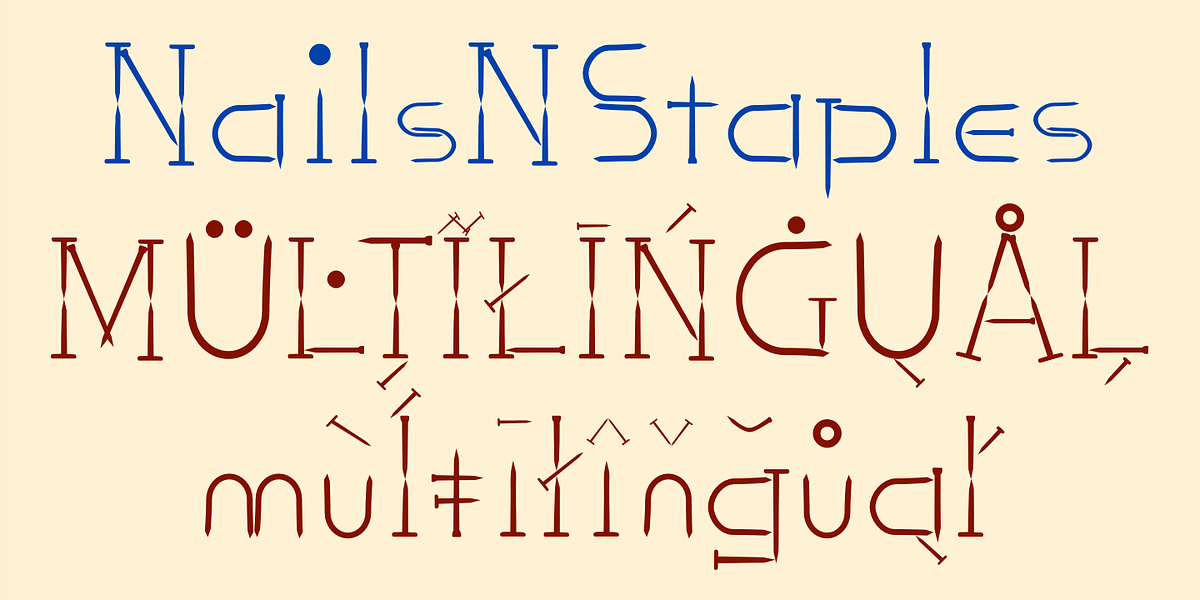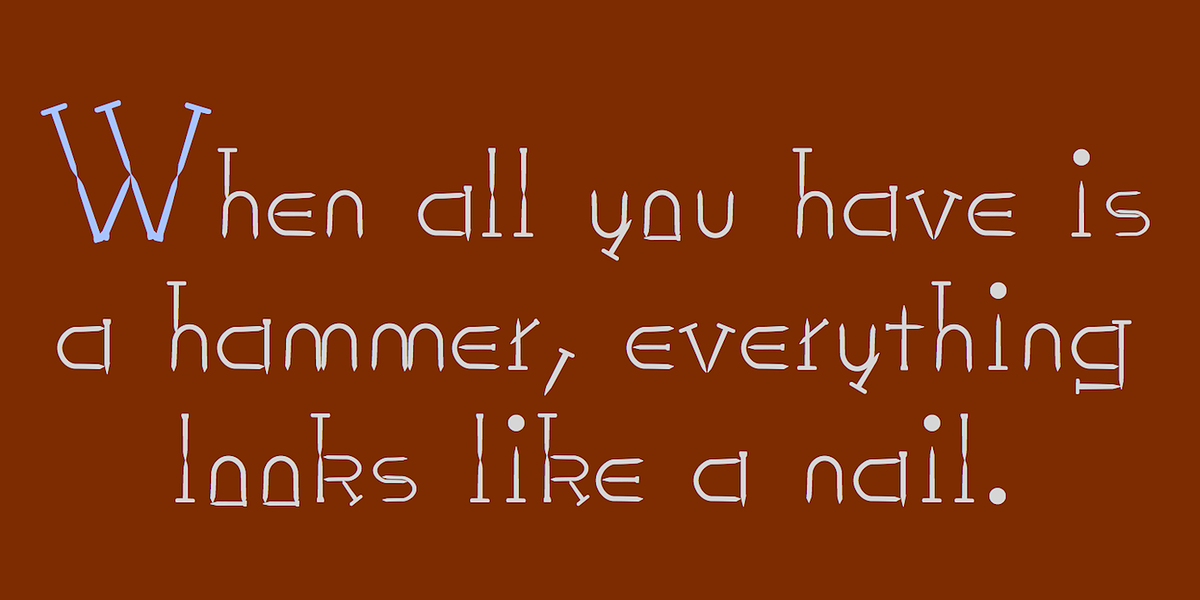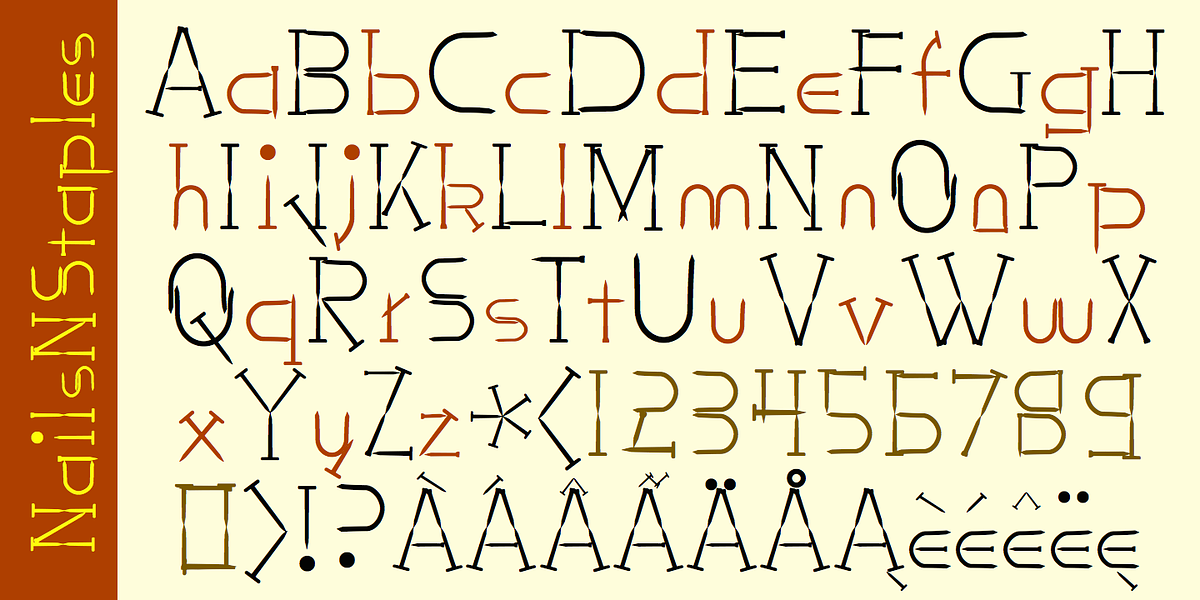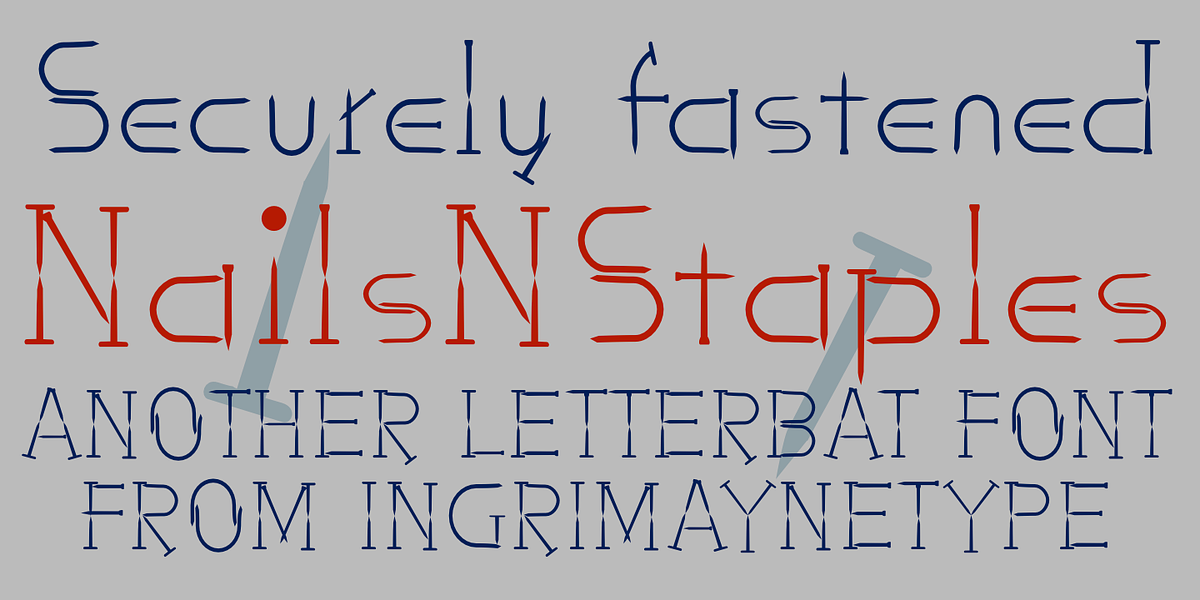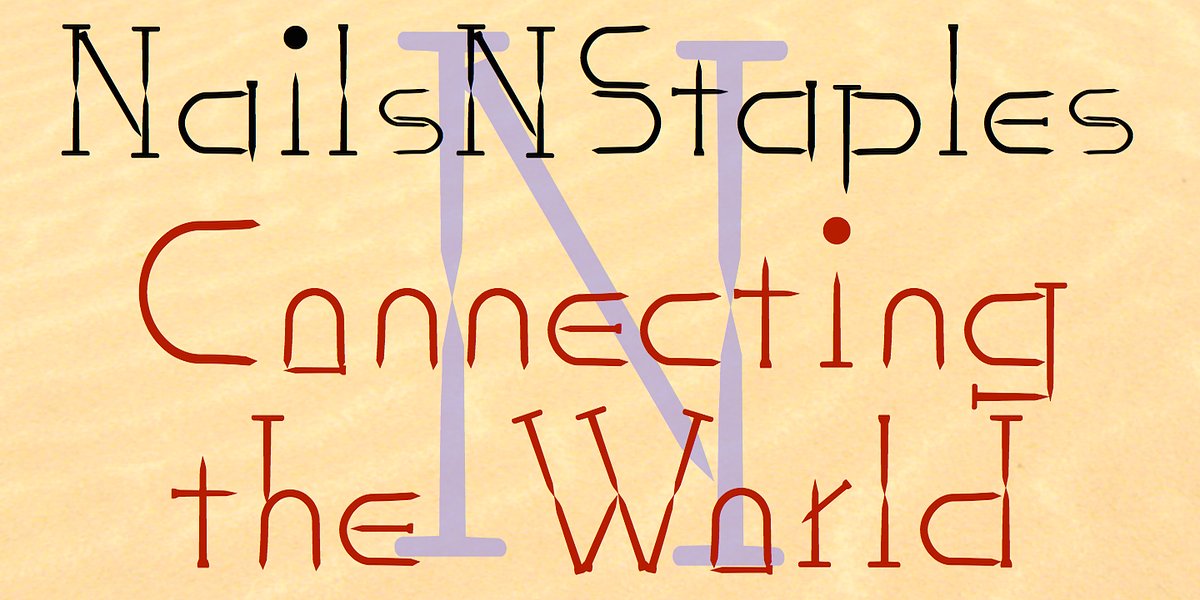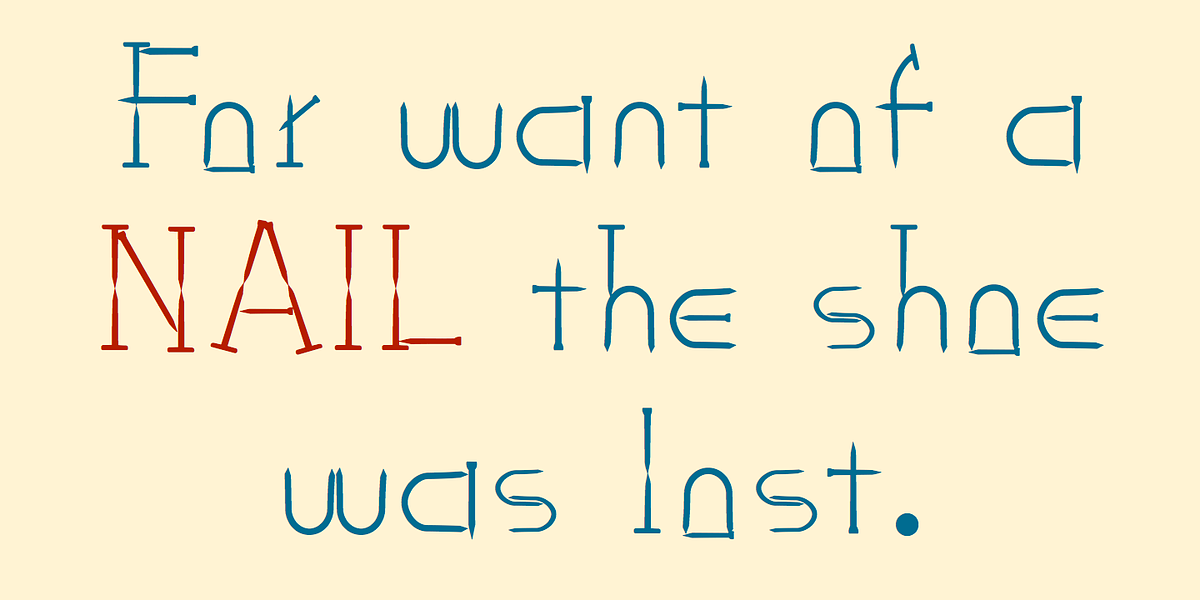
NailsNStaples
NailsNStaples is a novelty display font with a distinctive design. Its letters are uniquely crafted from nails and staples imagery, creating a visually striking and playful aesthetic.